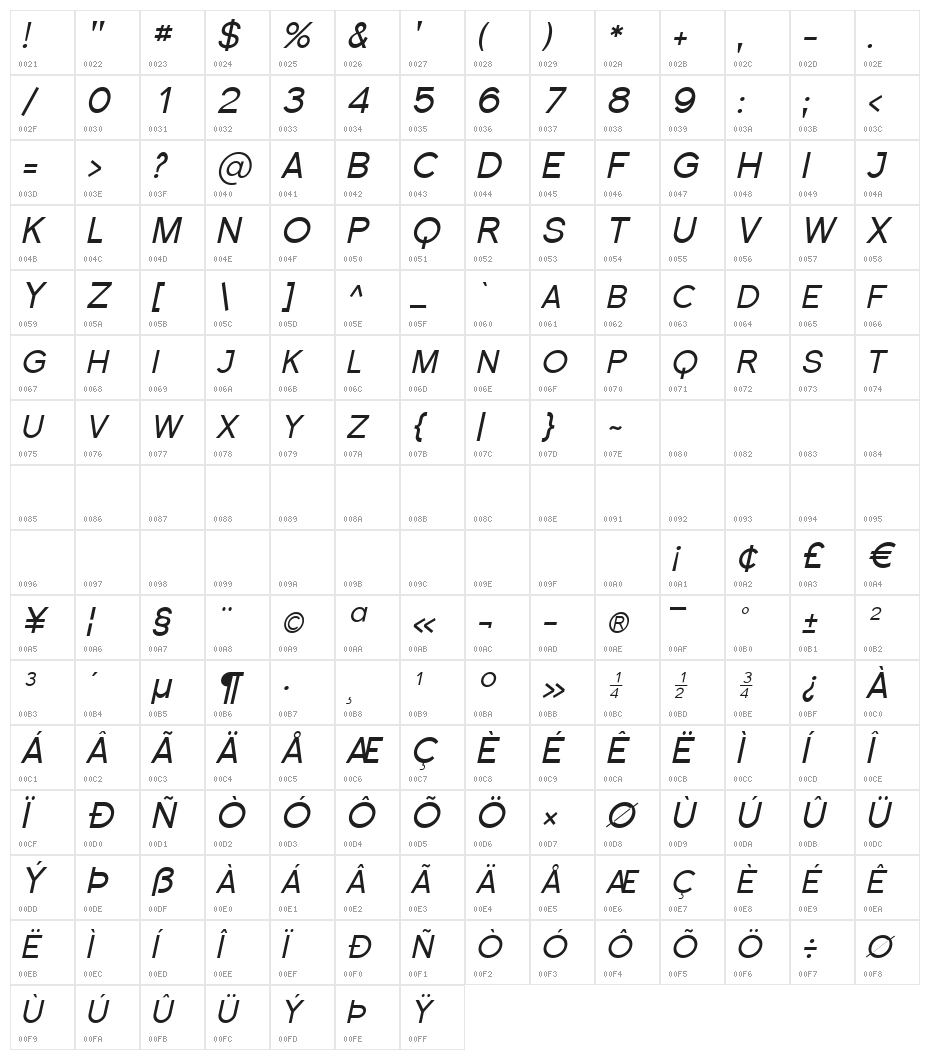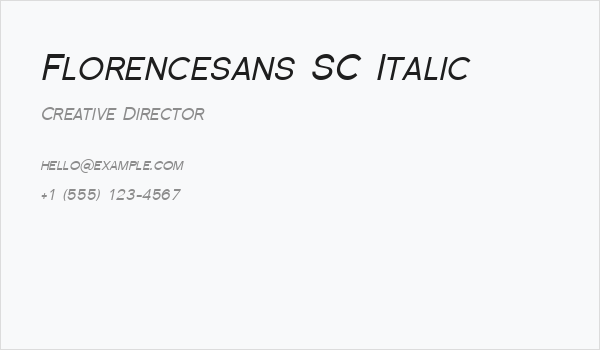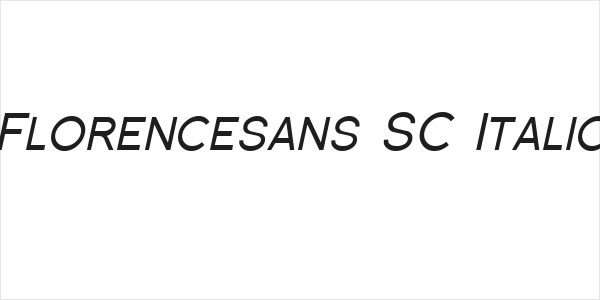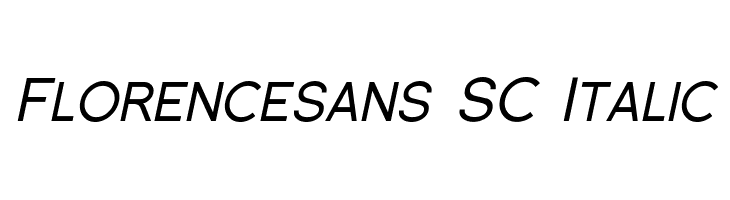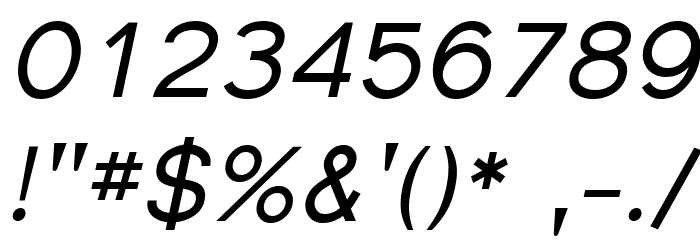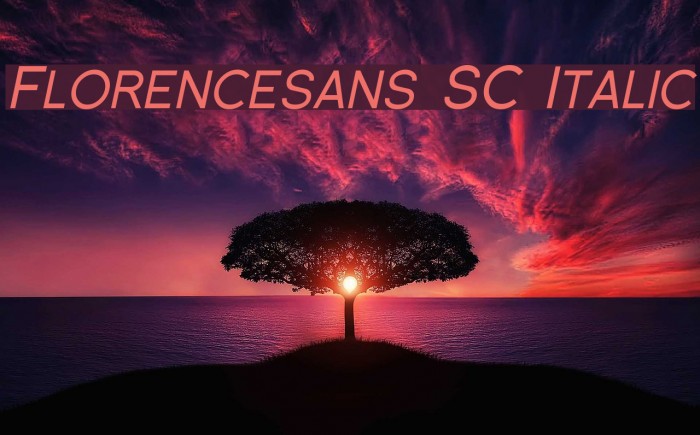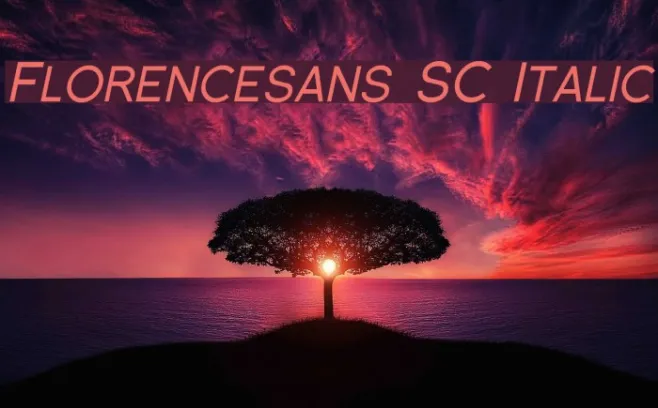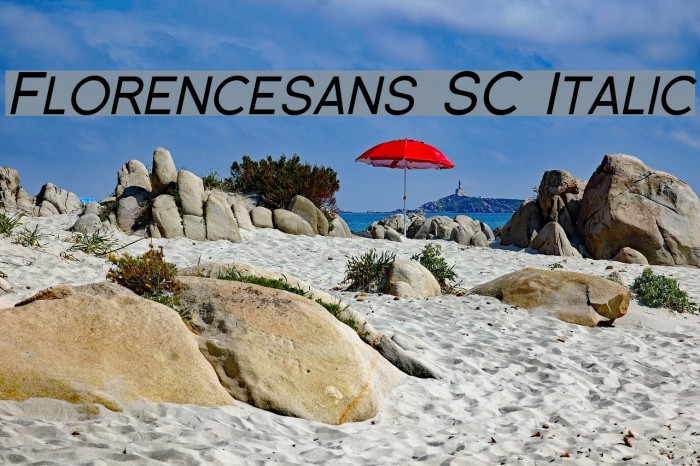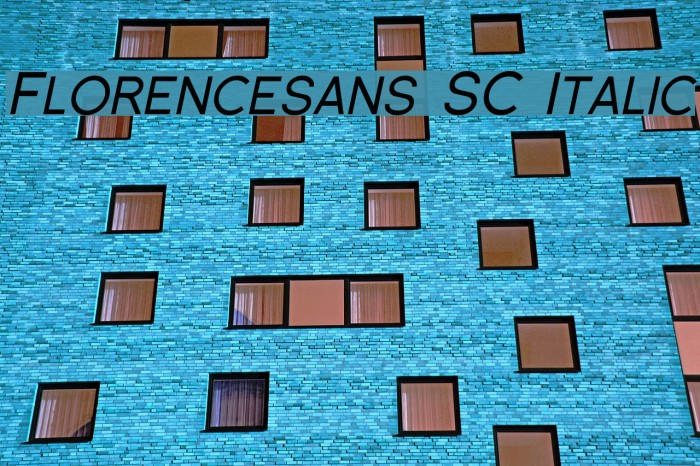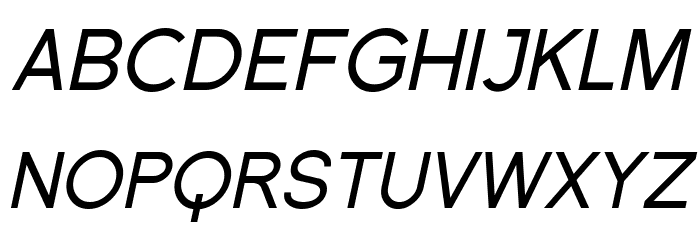
Florencesans SC Italic Font
Florencesans SC Italic Description
This font exhibits a sleek and modern sans-serif style with a distinct italic slant, giving it a dynamic and forward-moving appearance. The characters are clean and streamlined, with smooth curves and sharp edges that enhance readability while maintaining a stylish aesthetic. The uppercase and lowercase letters are well-proportioned, and the numerals are clear and easy to distinguish. Special characters are thoughtfully designed to complement the overall look, making this font versatile for various applications. Its contemporary feel is suitable for projects that require a touch of elegance and sophistication.